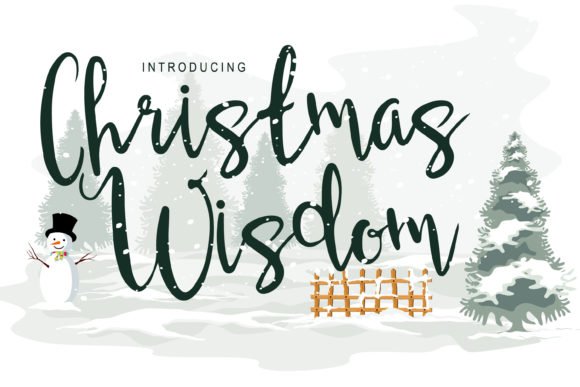
Unwrapping the Magic of Christmas Wisdom Font
As a designer, there’s nothing quite like the thrill of creating something special for a loved one. I still remember the night I stayed up late, crafting a custom wedding invitation for my best friend’s big day. The hours flew by as I carefully selected the perfect font, the perfect color palette, and the perfect words to express my love and support. And that’s when I stumbled upon it – the Christmas Wisdom Font, a stylish and elegant script font that added a touch of magic to the entire design.
This beautiful font is more than just a pretty face; it’s a valuable tool for designers looking to add a handwritten touch to their work. With its PUA encoding, you can access all the glyphs and swashes with ease, making it perfect for everything from wedding invitations to thank you cards, quotes, and logos.
Key Features of Christmas Wisdom Font
- Unique Characteristics: The font features a distinctive, hand-drawn design with intricate details and ornaments, evoking a sense of nostalgia and warmth.
Designer Review: Christmas Wisdom Font
As a designer, I’ve had the chance to work with the Christmas Wisdom Font, and I must say, it’s a mixed bag. ✨ On the positive side, the font does evoke a sense of warmth and nostalgia, perfect for holiday-themed designs. The combination of traditional and modern elements works well together, making it suitable for a variety of projects, from invitations to social media graphics.
- Unique blend of classic and modern elements
- Perfect for holiday-themed designs
- Suitable for a range of projects, from invitations to social media graphics
However, there are some limitations to consider. ⚠️ The font can feel a bit overused, and some of the characters may not render well in certain sizes or resolutions. Additionally, the font’s spacing and kerning can be a bit off at times, which may require some manual adjustments to get it just right.
Overall, I’d say the Christmas Wisdom Font is a solid choice for holiday designs, but it may not be the best fit for every project. With a bit of tweaking and attention to detail, it can be a great addition to your design arsenal.
Christmas Wisdom Font Practical Application Guide
To get the most out of the Christmas Wisdom Font, use it in conjunction with other festive graphics and elements. Consider pairing it with bold, bright colors and simple shapes to create a striking design. You can also use the font to create a cohesive look across multiple design elements, such as headings, subheadings, and body text.
The Christmas Wisdom Font is perfect for creating festive holiday designs, such as:
- Holiday cards and invitations
- Seasonal social media posts and graphics
- Christmas party decorations and signage
- Gift tags and wrapping paper
Alternatives to Christmas Wisdom Font
Great Vibes Font is a beautiful, elegant script font that is perfect for creating a warm and inviting atmosphere. It’s ideal for use in wedding invitations, greeting cards, and other special occasion designs. Great Vibes Font is more cursive and less ornate compared to Christmas Wisdom Font, making it a great choice for designs that require a more subtle touch.